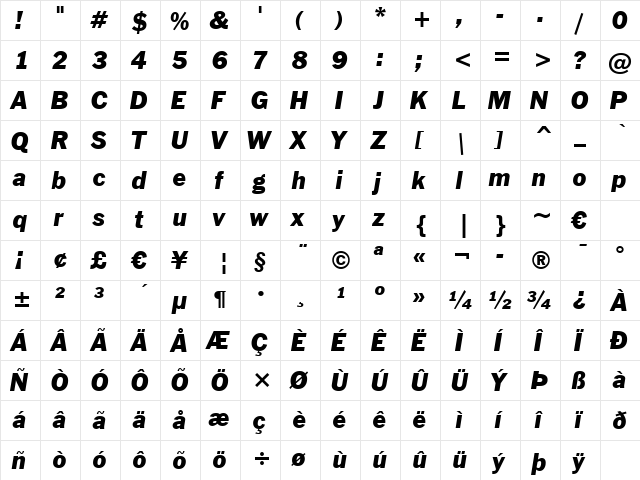
FrankGoth BT Italic
Design Context for FrankGoth BT Typeface
FrankGoth BT takes a measured approach to typography — its balanced proportions and neutral character make it a reliable workhorse for both digital and print work. The slanted form adds forward momentum and visual energy.